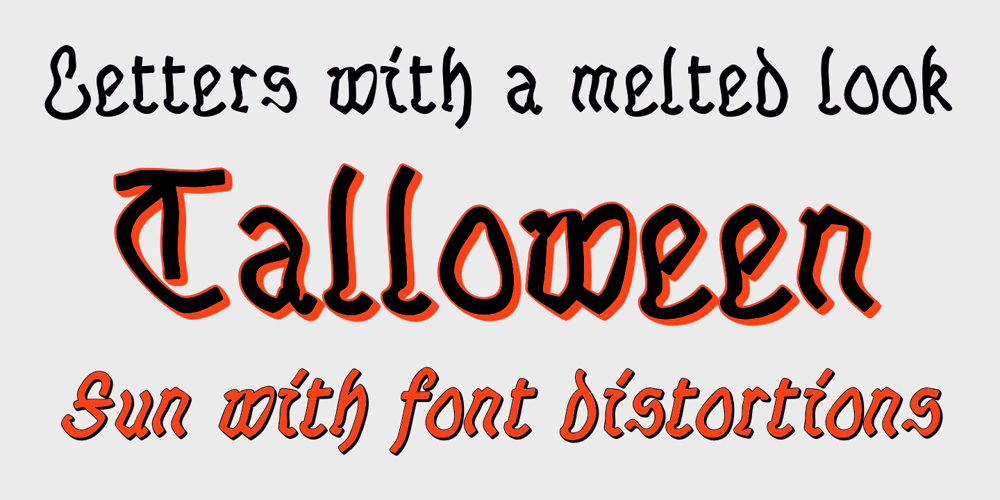
Talloween
Talloween font
Talloween Font Family was designed by Robert Schenk and published by Ingrimayne Type. Talloween contains 4 styles and family package options. Talloween is a bizarre typeface in which the letters have a fraktur form, but look as if they had been made of wax that has partially melted. It comes in four styles, regular, oblique, shadow, and oblique shadow.